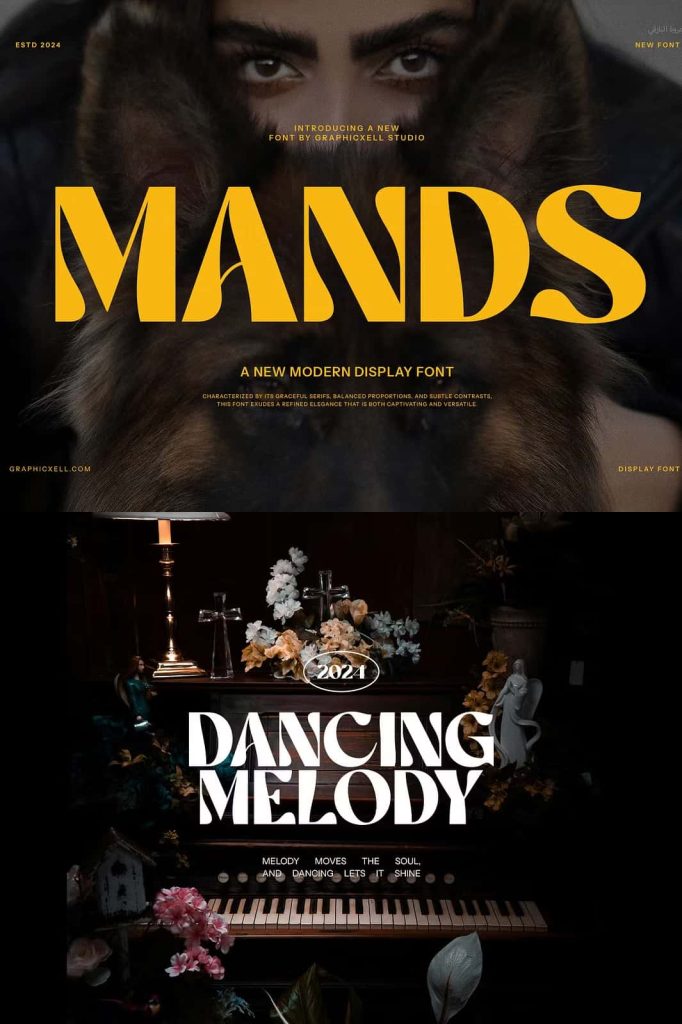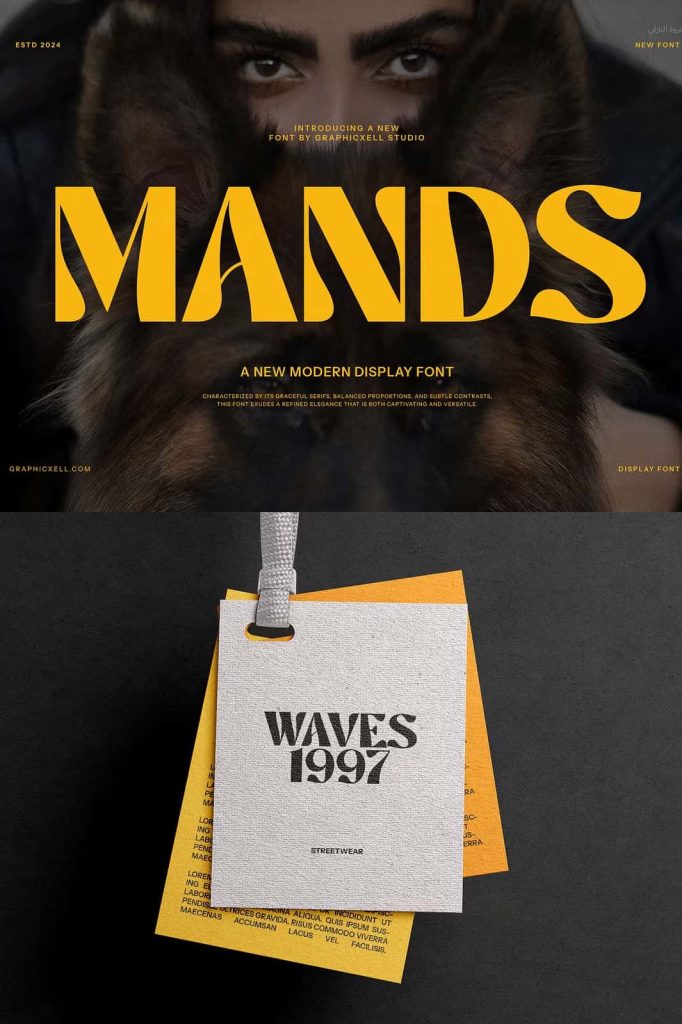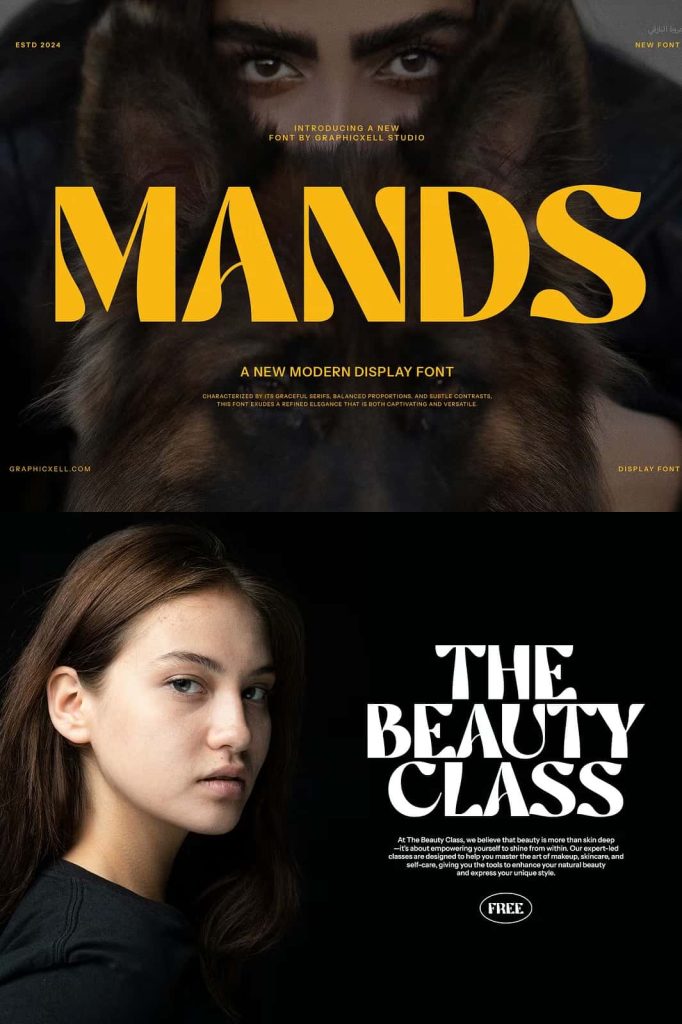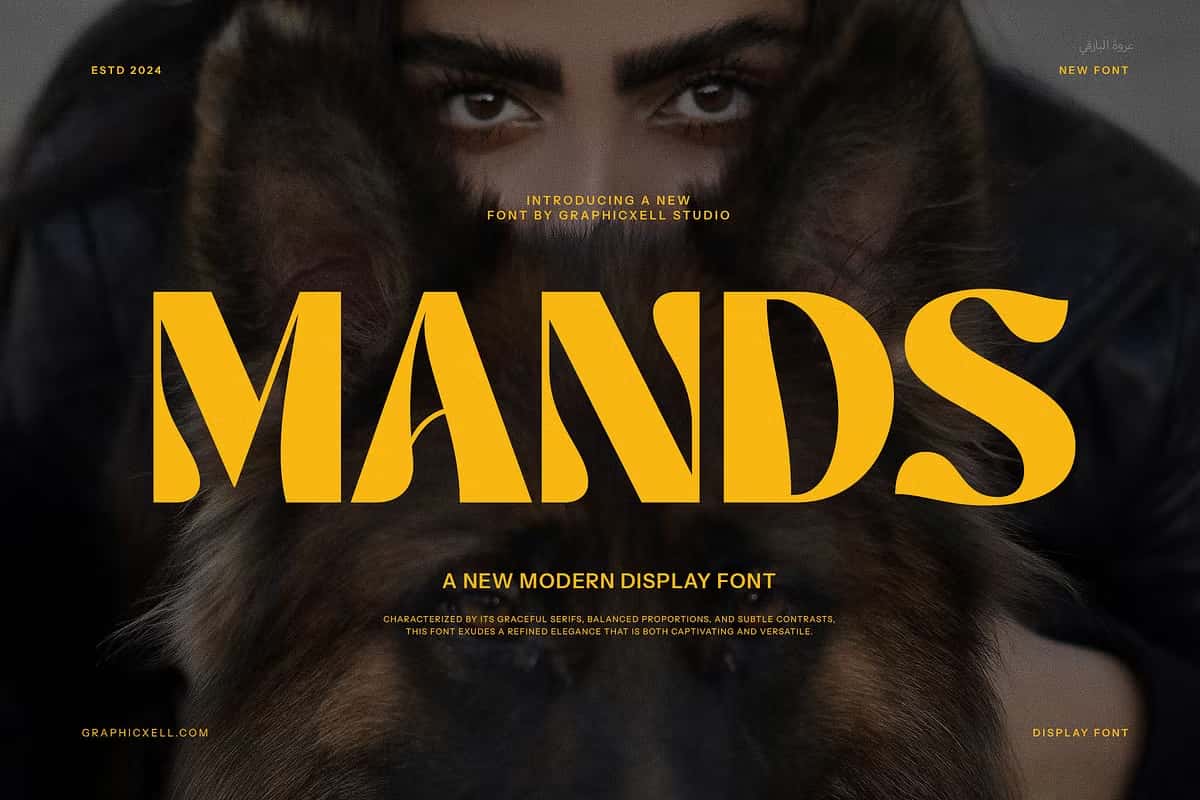
Mands Typeface: A Modern Serif Design with Elegance and Style
Mands Typeface presents a refined and stylish serif font crafted to elevate design expression. This typeface stands out with its graceful curves, balanced structure, and smooth strokes, offering a sophisticated yet charming appearance. Designed with modern aesthetics and subtle calligraphic influences, Mands Typeface becomes a perfect choice for anyone seeking a typeface that communicates elegance, refinement, and visual personality.
The font demonstrates a contemporary design approach where beauty and readability work together. Its impressive curvature and thoughtfully crafted ligatures add unique character to each word. These details allow Mands Typeface to bring life to brands, editorial designs, and digital content while maintaining a polished and meticulous appearance.
A Typeface Designed for Modern Creativity
Mands Typeface offers much more than a traditional serif structure. It blends artistic details with professional clarity, creating a distinctive visual tone that resonates with luxury, confidence, and modern craftsmanship. The delicate lines and fluid movement of each letter demonstrate precision and strong typographic direction.
Another defining aspect of Mands Typeface is the contrast between thin and thick strokes. This contrast brings depth, dynamic rhythm, and premium design appeal. With its calligraphic influence, the typeface feels expressive, stylish, and suitable for both decorative and branding applications.
Perfect Applications for Mands Typeface
Because of its versatility and elegance, Mands Typeface works beautifully across various creative and professional design fields. It adapts effortlessly to branding systems, packaging, editorial layouts, digital content, and luxury-themed visuals. Designers can apply it confidently in:
- Beauty and fashion branding
- Luxury product packaging and product labeling
- Layout and editorial design, including magazines and books
- Elegant crafting and artistic design projects
- Advertising and promotional campaigns
- Professional design templates and presentation materials
- Wedding stationery, invitations, and event branding
- Website headers, banners, and digital content graphics
Whether used as a headline typeface or paired with minimal sans serif fonts, Mands Typeface maintains clarity and visual balance. Its graceful ligatures and stylistic features add personality and provide multiple styling possibilities depending on project needs.
Design Impact and Emotional Expression
Typography has a strong influence on how audiences interpret design, and Mands Typeface excels at creating a refined emotional response. The typeface feels graceful, contemporary, and intentional. Its smooth structure communicates confidence without feeling overly bold, and its decorative touches add beauty without overwhelming the composition.
Designers who want to represent elegance, luxury, and artistic direction will find the expressive nature of Mands Typeface especially valuable. The font successfully supports brand storytelling, visual communication, and premium presentation styles across both print and digital environments.
Enhance Your Creative Work with Mands Typeface
Mands Typeface stands as more than just a font; it is a professional design tool built to enhance visual creativity and elevate the message of every project. With its stunning curves, stylish ligatures, and refined stroke contrast, this typeface delivers a modern and luxurious impression.
Bring Mands Typeface into your design toolkit and create captivating, elegant, and professionally refined visual compositions that stand out in any creative field.